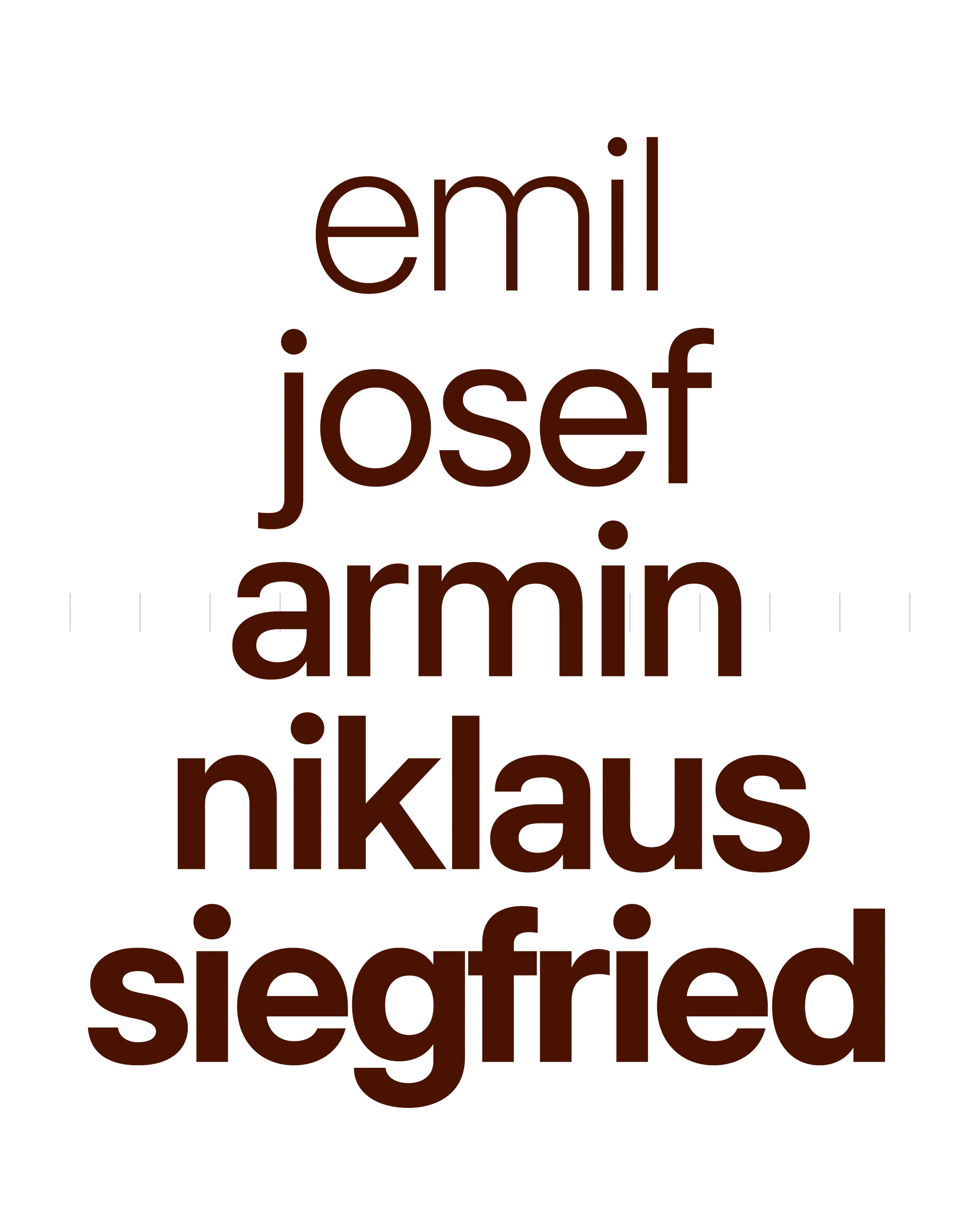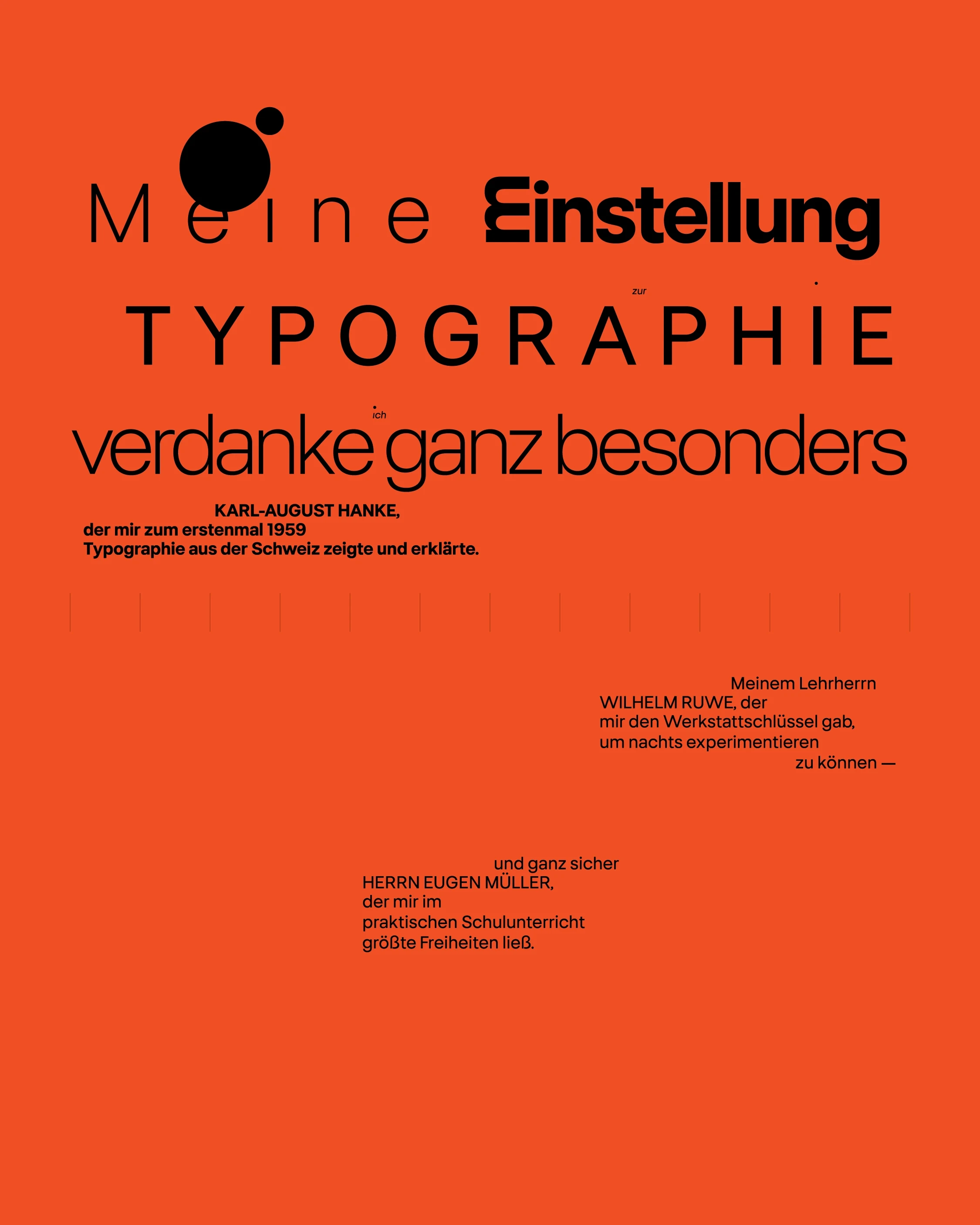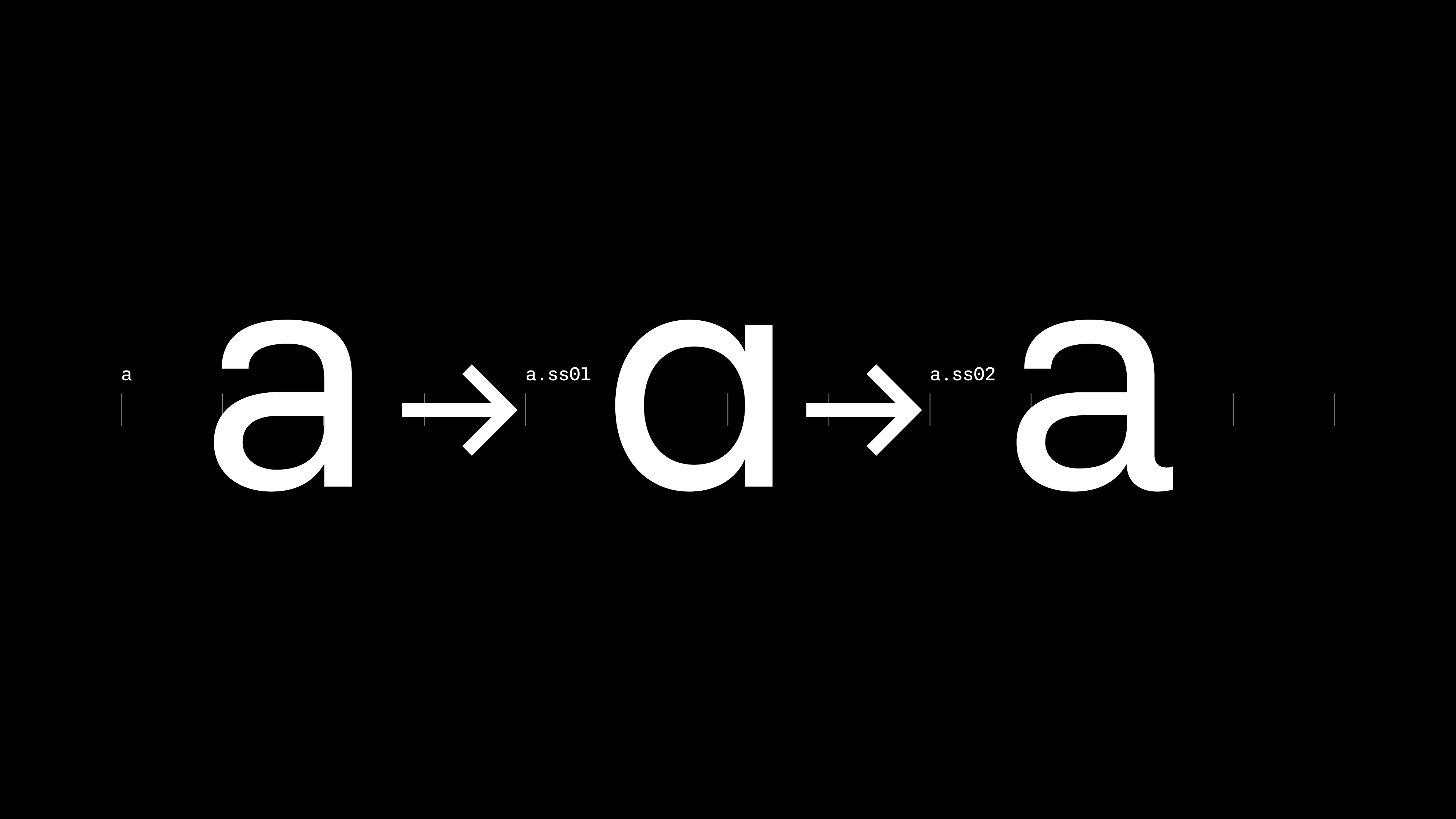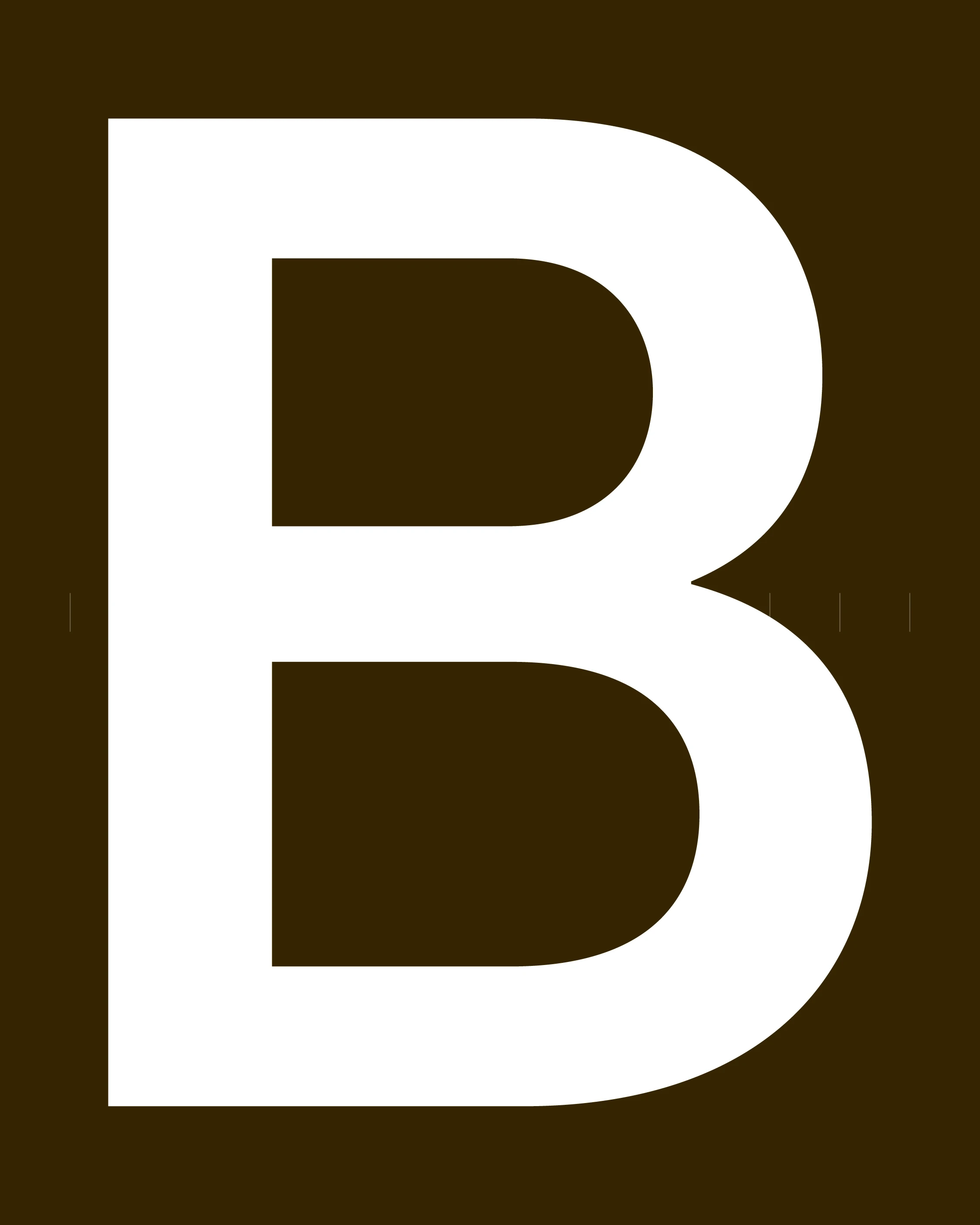
FH Premier revisits the early grotesks of the late 19th century through a contemporary lens. Rooted in the structural rigour of Akzidenz Grotesk and informed by the clarity of mid-century modernism, it refines historical forms with restrained detailing and optical precision. Designed for signage, transport, and editorial systems, FH Premier balances heritage and utility with quiet confidence.
Classification: Sans-serif / Neo-Grotesque